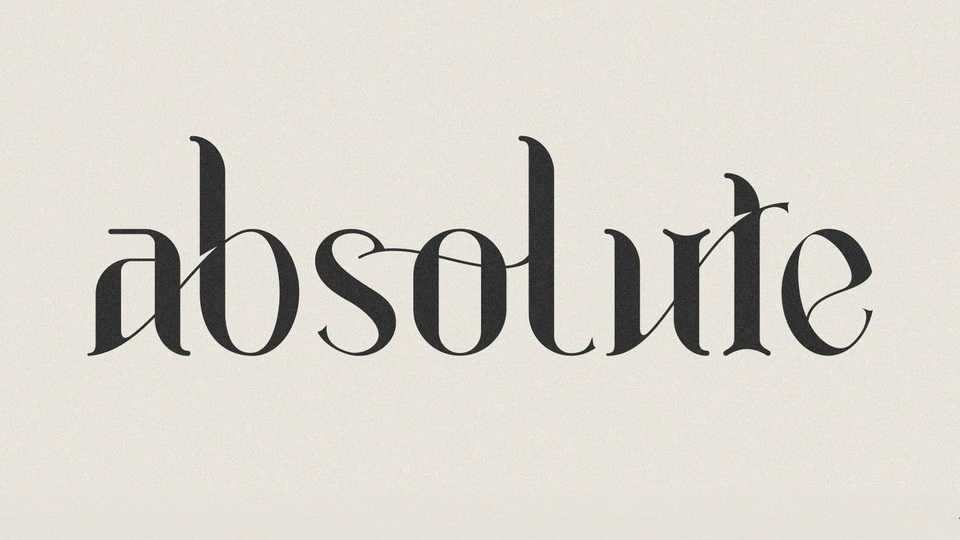
Download Absolute font, a modern serif typeface with a unique look and feel. Absolute is perfect for fashion related branding or editorial design and displays.